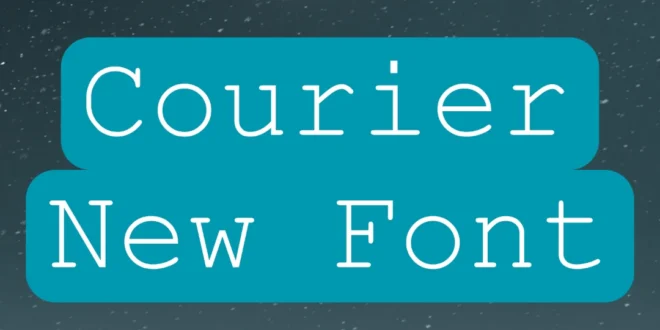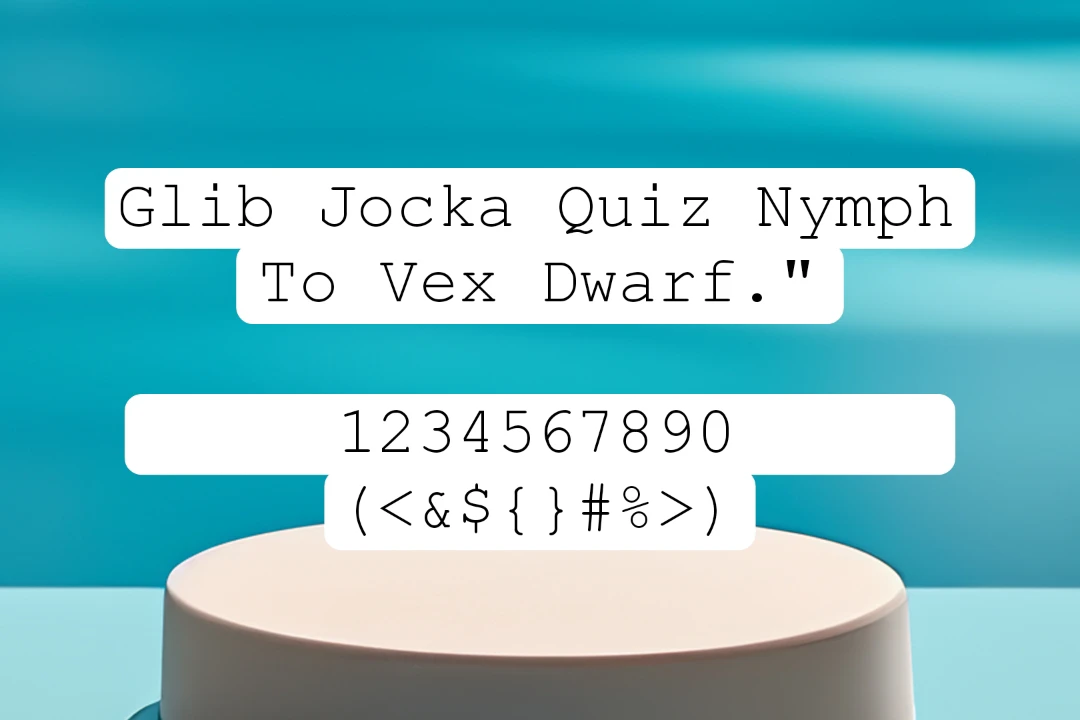
Courier New Font
Howard Bud Kettler (1919–1999) created the Courier New Font in the 1950s as a typewriter font for IBM. Initially, it was intended only for IBM typewriters, but because IBM didn’t trademark it, Courier became public.
This font belongs to the serif font with various types of characteristics. Where each character occupies the same horizontal space. Known for its fixed width and clean, structured appearance.
Its monospaced format aligns perfectly, making it easier for programmers and designers to maintain neat layouts. You can customize the font with a generator or other online tools, making it versatile for digital and print design needs.
Uses of Courier New Font
It is widely used in coding due to its monospaced style, which allows coders to easily spot errors and align elements.
This consistency makes it a preferred choice in programming editors and terminals, ensuring readability.
In document formatting, Courier New offers a classic look, perfect for screenplays and academic submissions that require fixed-width formatting. Its simple, unembellished design is effective for maintaining clear layouts.
It is a digital adaptation of the classic Courier font, created by Howard “Bud” Kettler and updated by Adrian Frutiger for a modern look with TrueType format support.
This font was designed by Howard “Bud” Kettler. Later, Adrian Frutiger updated it for Microsoft, creating the Courier New version we commonly see today.
Yes, Courier and Courier New are still widely used in coding, screenplays, and document formatting. They remain popular due to their monospaced design, which is easy to read and ideal for structured layouts.